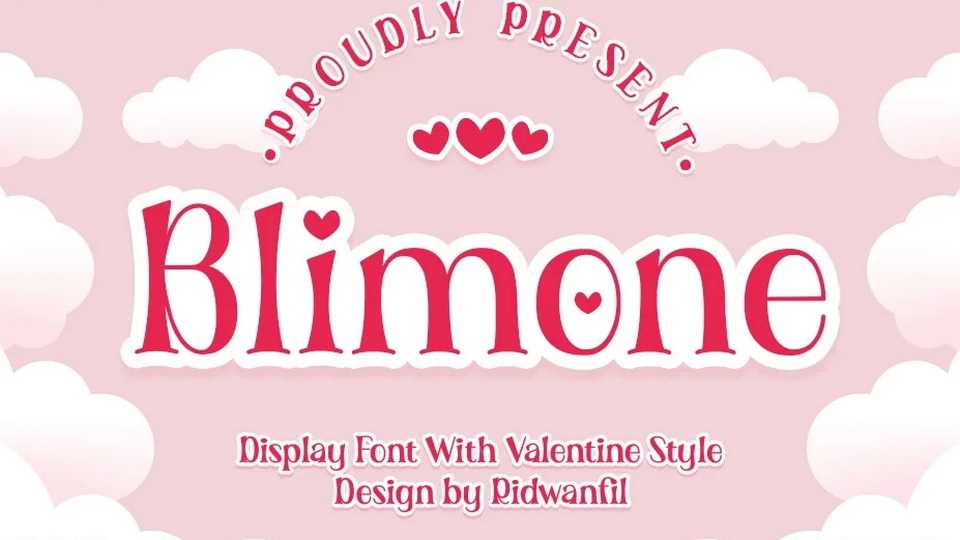
Download Blimone font, a lovely serif typeface inspired by handicrafts that are combined with Valentine’s style to add a sweet, funny, full of love and affection to every implementation of the letters used.
Designer: Ridwan Fadilah